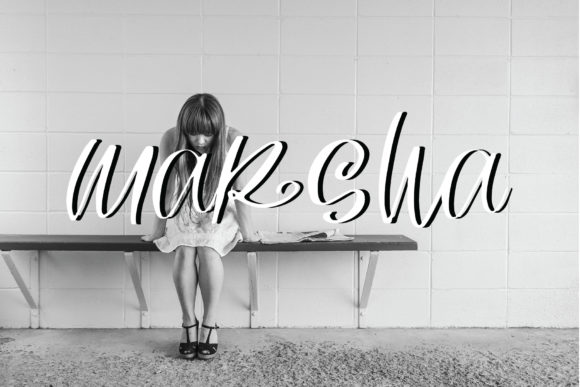
Marsha Font
About Marsha Font
Marsha is a cute, dazzling and overall lovely script that pays homage to classic calligraphy. This fancy font will turn any design idea into a standout!